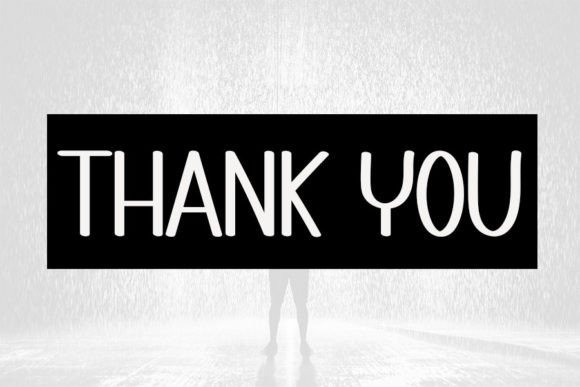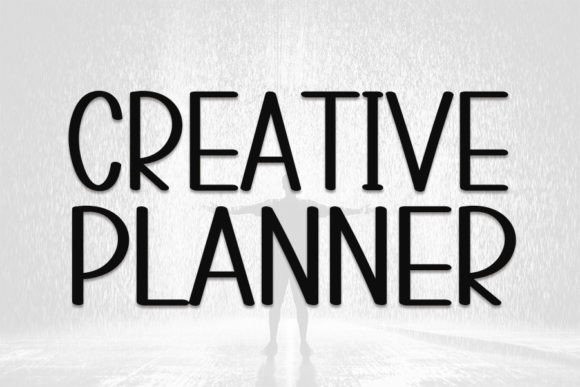
Creative Planner Font
Creative Planner Font is a simple and clean handwritten font. With tall and thin characters, Creative Planner font is perfect for quotes, banners, headers, cards, invitations, posters, and more.